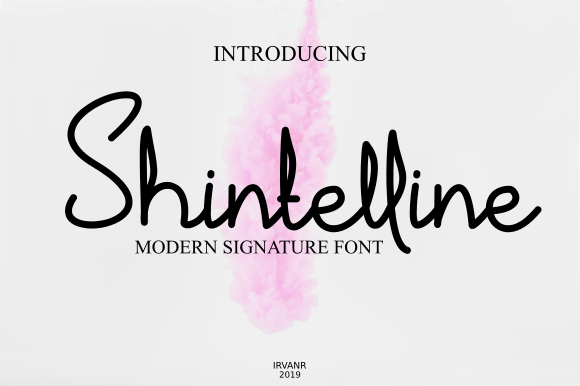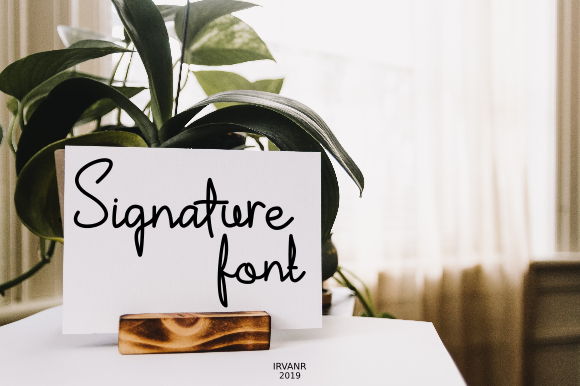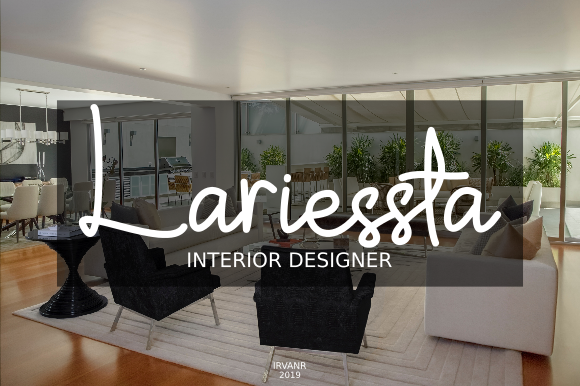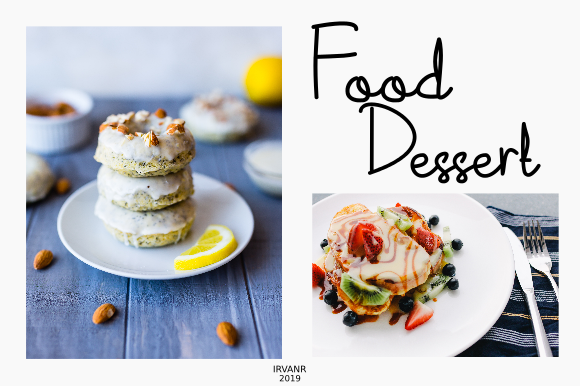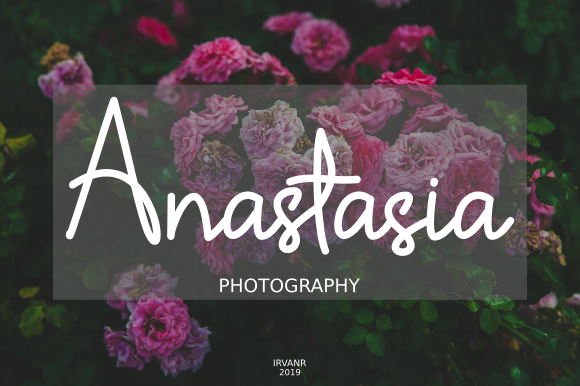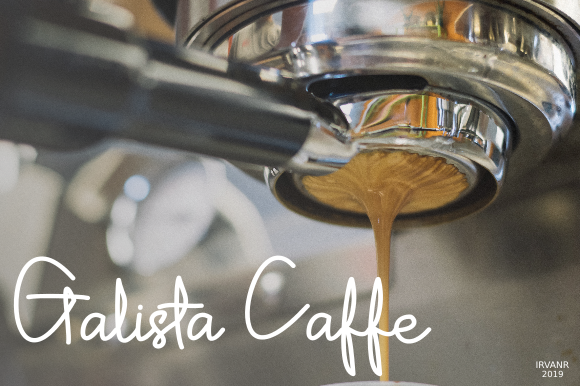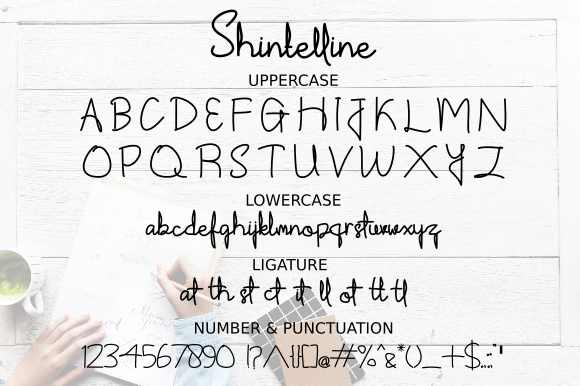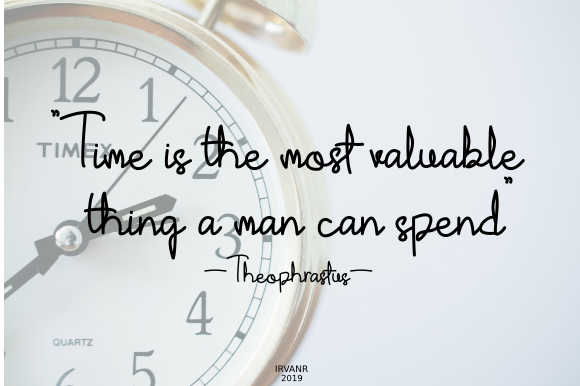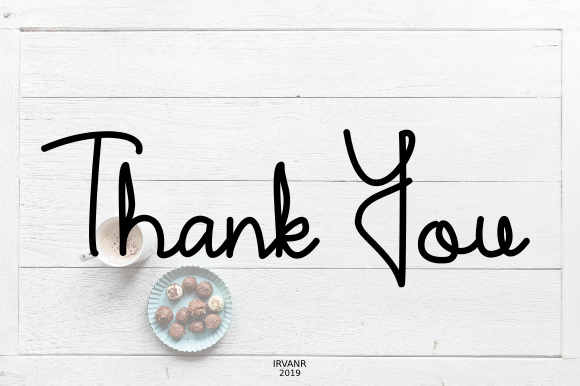
HomeScript FontsShintelline Font Script Fonts Shintelline Font FacebookXPinterestWhatsApp Shintelline Font Poster 2 Shintelline Font Poster 3 Shintelline Font Poster 4 Shintelline Font Poster 5 Shintelline Font Poster 6 Shintelline Font Poster 7 Shintelline Font Poster 8 Shintelline Font Poster 9 About Shintelline Font The Shintelline is a signature script font. It’s great for branding, posters, quotes, and much more! DOWNLOAD ON CREATIVE FABRICAThis font is sold and delivered by Creative Fabrica. Font Canyon may earn a commission if you buy through this link. People also explored Injar Font Hope Staylig Font Darling Font Talitta Font Golf Mania Font White Stone | Beer Mockup Pastel Font Valentina Rainbow Font Meega Juctice Font 258 0 TagsShintelline Font Previous articleBella FontNext articleJattestor Font LEAVE A REPLY Cancel reply Comment: Please enter your comment! Name:* Please enter your name here Email:* You have entered an incorrect email address! Please enter your email address here Website: Save my name, email, and website in this browser for the next time I comment. Personal Use Free Bosk Personal Use Free Read more about this font Quickline Personal Use Free Read more about this font Zelega Zenega Personal Use Free Read more about this font Vanity Personal Use Free Read more about this font BLOG Using Fonts in Digital Marketing: Tips to Strengthen Your Brand Identity In the realm of digital marketing, every visual element plays a crucial role in shaping a brand's identity, and fonts are no exception. The... Top 10 Handwritten Fonts That Elevate Your Designs Fonts That Capture the Spirit of New York City To increase your work productivity, choose the most readable fonts.